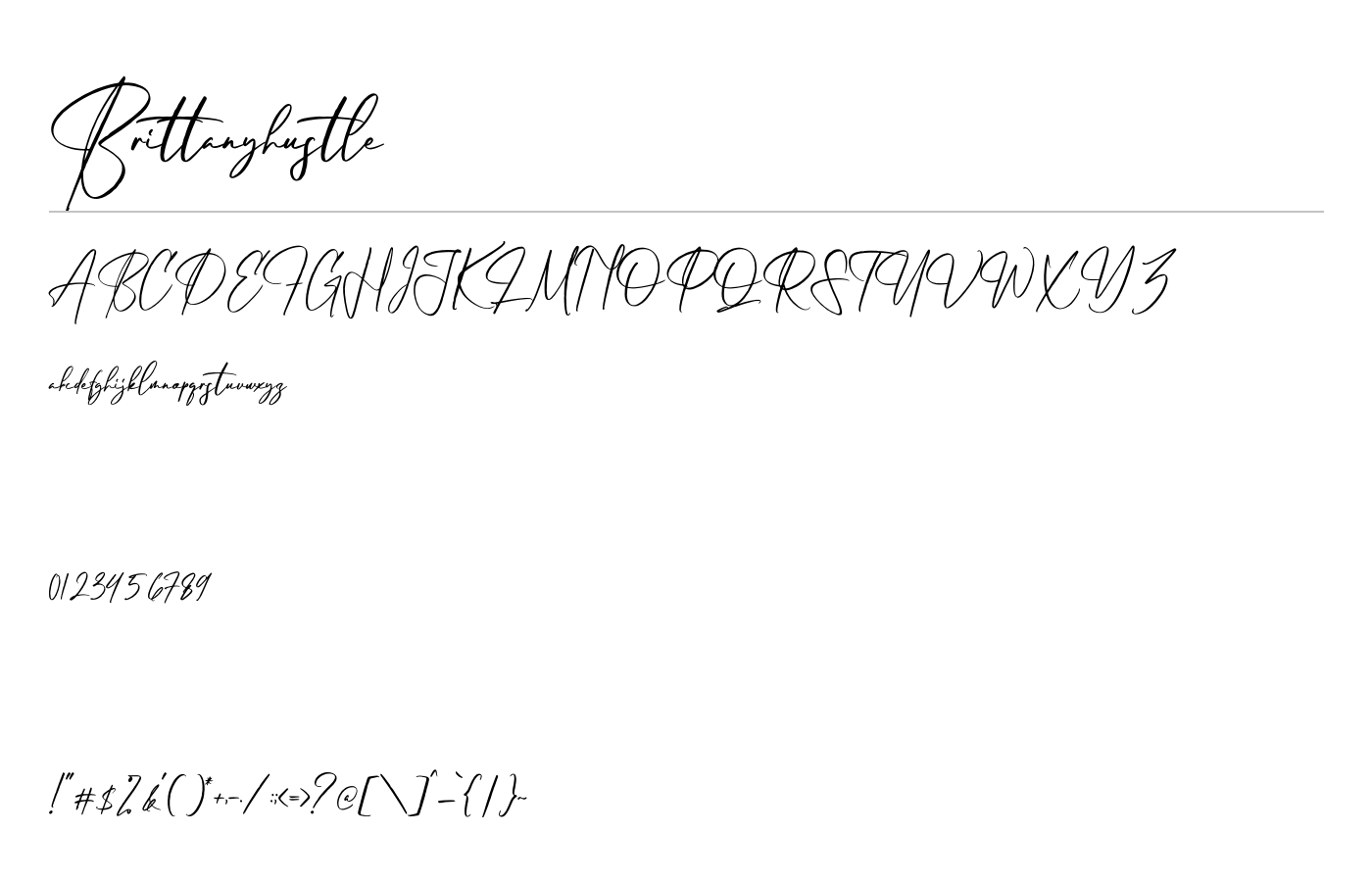
Brittanyhustle is a delicate, elegant script font featuring slender, flowing letterforms with a natural handwritten feel. Its light weight and airy spacing give it a graceful and sophisticated personality, making it ideal for fashion branding, invitations, and stylish editorial designs. This font works best in headlines or decorative text where its fine, expressive strokes can shine and add a touch of refined charm.
Brittanyhustle Font
About Brittanyhustle Font